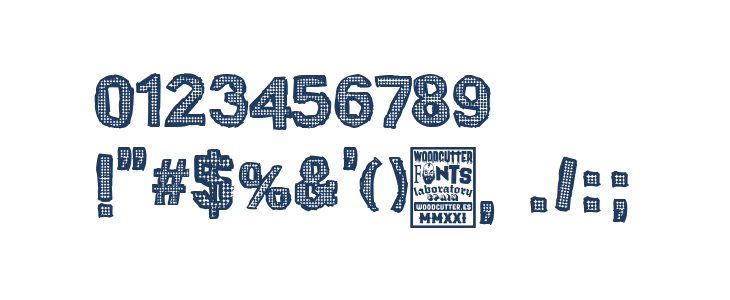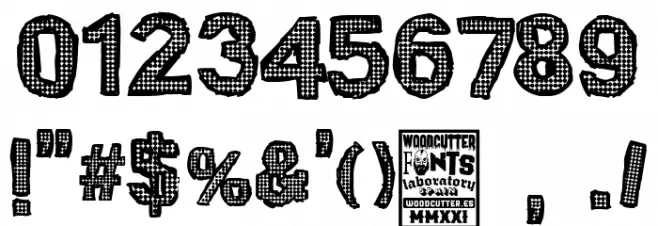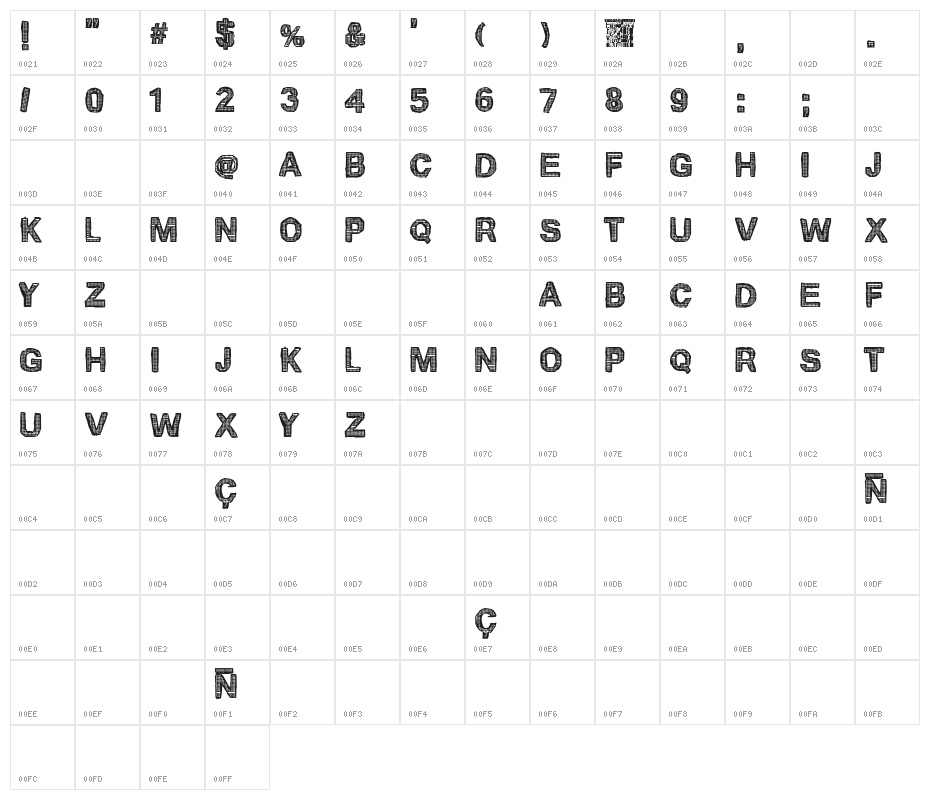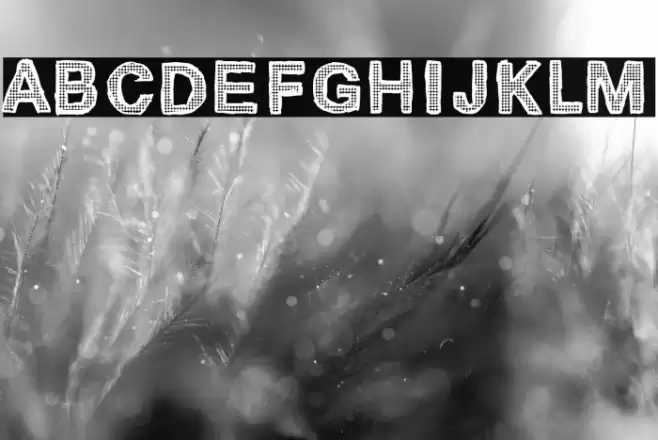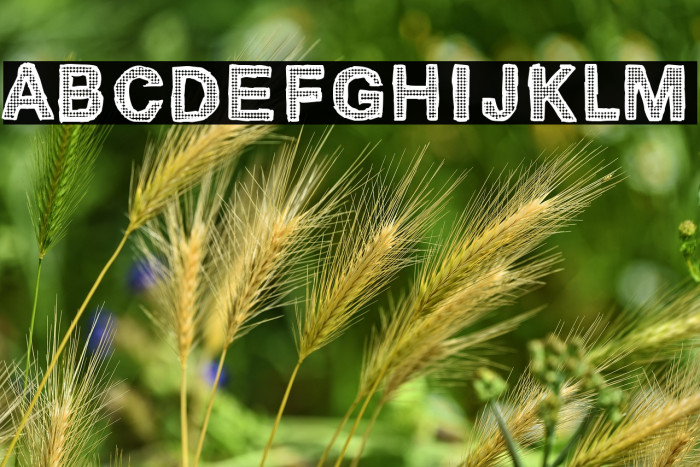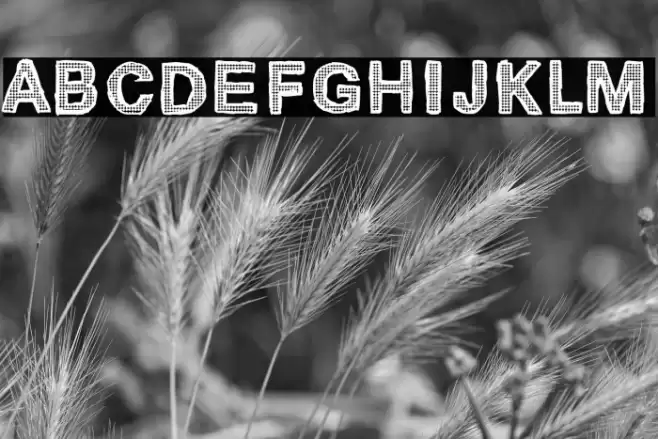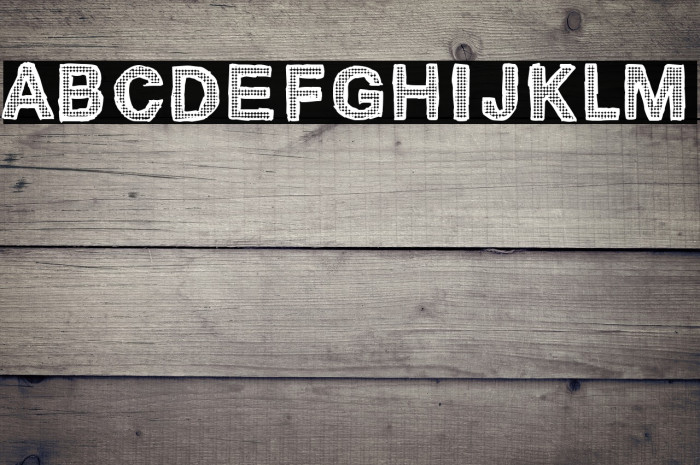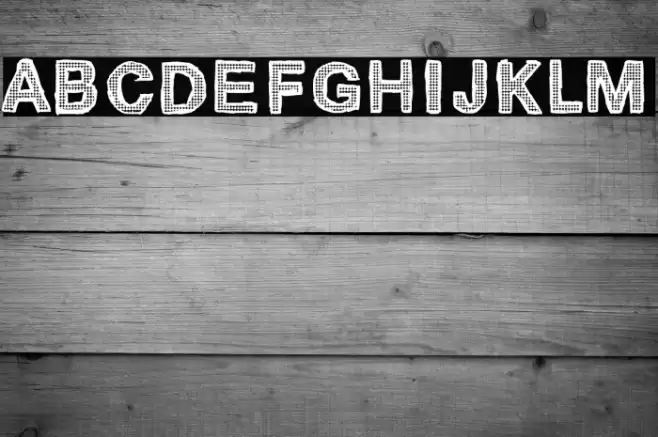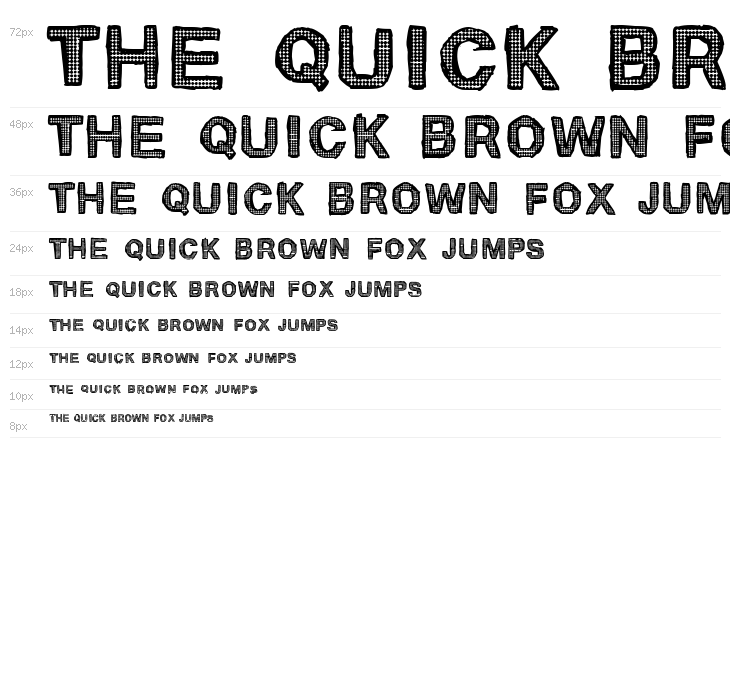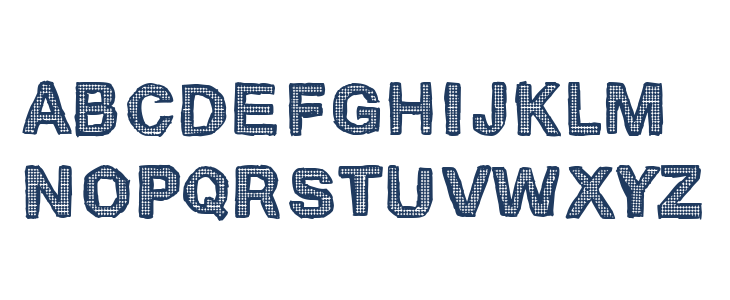
Cardinale 370 Font
Cardinale 370 Description
This font features a bold, decorative style with a unique dotted texture that gives it a distinct, eye-catching appearance. The characters are uppercase and numerals, each outlined with a consistent pattern of dots, creating a textured effect that stands out. The design is playful yet structured, making it suitable for creative and artistic projects. Its boldness ensures visibility, while the dotted pattern adds a layer of visual interest. The font maintains a uniform width across all characters, contributing to a cohesive look.
| Proposed Projects | Ideal for posters, headlines, branding, and any project requiring a standout, artistic font. |